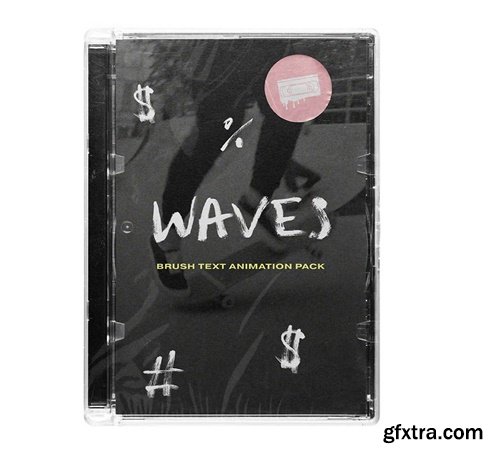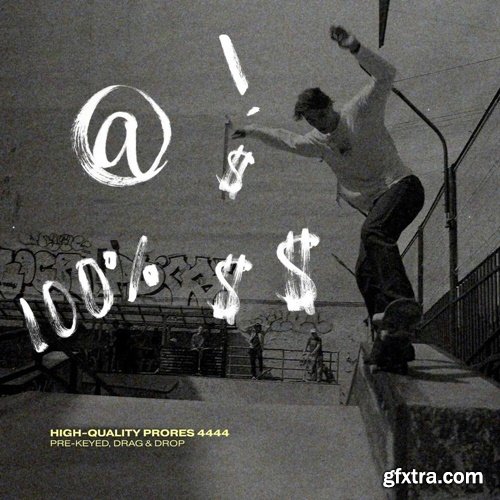
The raw look of brushed text created from authentic scans - this Brush Text Animation Pack was scanned frame by frame to capture every groove of ink - while matching perfectly to a digital workflow. Offered in high-quality ProRes 4444, this pack offers one of the most accurate looks on the market for the art-form.
Taking inspiration from street art, these brush designs have a grounded vintage feel for filmmakers looking to add a 90’s look or gritty feel to their music video or commercial project. At Video Milkshake, we wanted to create a letter pack that never forgot it’s heritage - from authentic brush scans on paper to a digital workflow complimenting some of the most sought-after looks of today. This is a Text Animation Pack that will grow with and compliment your own video recipes. Choose From Over 60 Assets Developed in stunning ProRes 4444 fit in a 1152 x 1152 frame for a clean downscale or tint change without falling apart. Workflow Ready Easily drag and drop the pre-keyed animations on your timeline to quickly build your titles with the ProRes 4444 files. Mobile-ready files easily blend with “screen” mode in one click for a seamless experience.